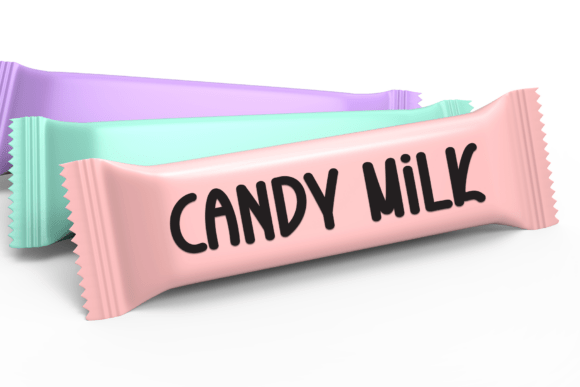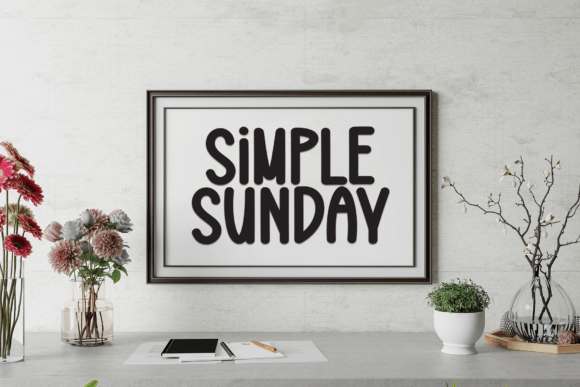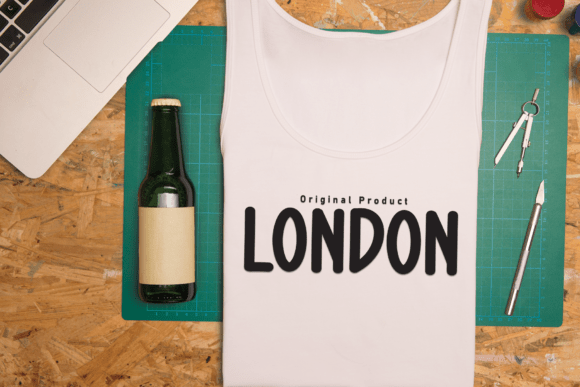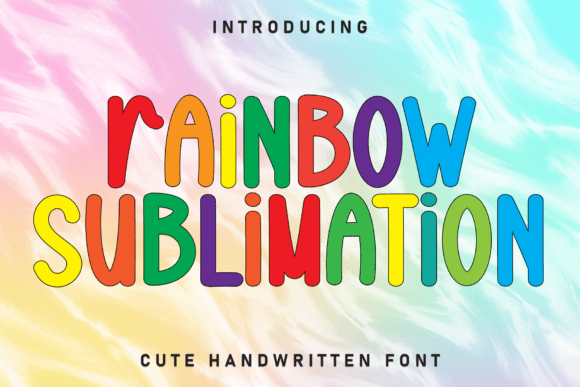
Introduction to Rainbow Sublimation Font
Presenting Sweetlings, an entrancing, handmade display font that breathes life and allure into the mundane.
This buoyant, jovial font paints every aspect of cheery wedding invites, energetic greeting cards, or any design needing an edge of whimsical distinctiveness with an enigmatic touch With Sweetlings, each piece of adorned text transforms into a vibrant tapestry of joy and exhilaration, ensuring it commands attention.
Why Choose Rainbow Sublimation Font?